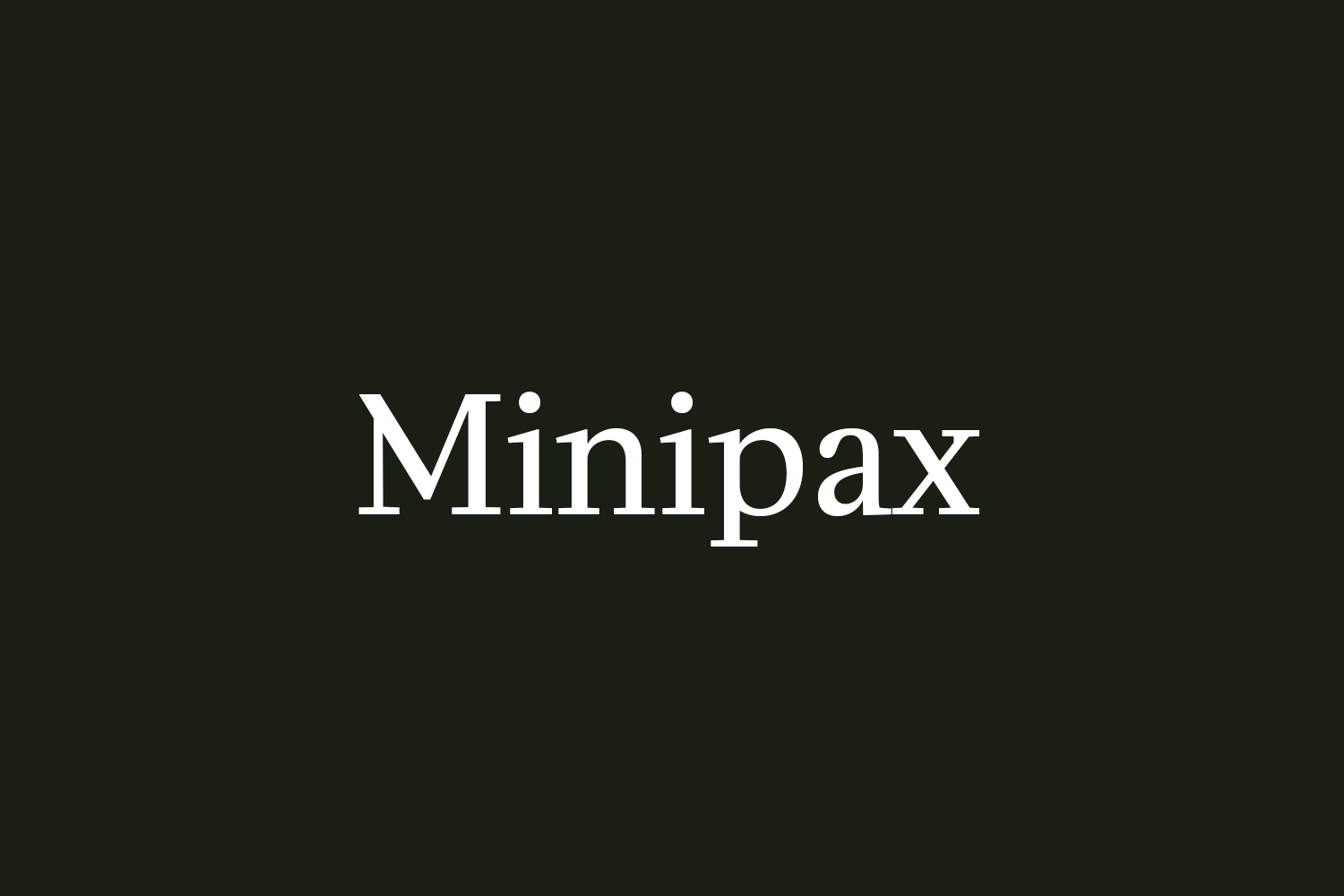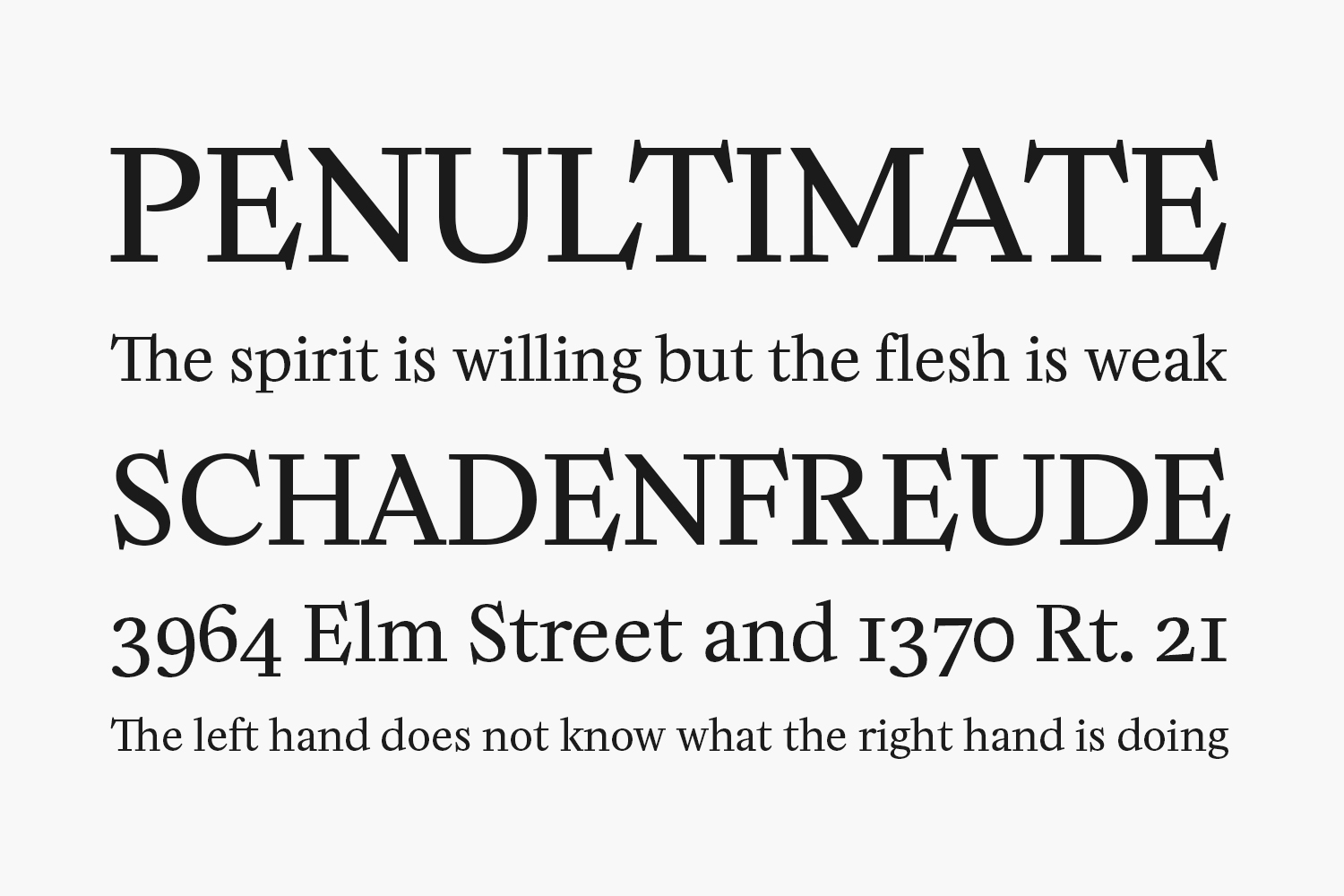
Minipax Free Font Family is a typeface inspired by the novel 1984, from George Orwell. It has been vaguely influenced by the skeleton of the font used in my edition of the book (printed in 84 !). But more importantly, it’s been designed to fit with the atmosphere of the Orwellian dystopia. And although Minipax remains a rather transparent text typeface, many of its distinctive features have been crafted to reflect de dusty and gritty universe of the novel.
There’s something more about Minipax : from the start, I wanted it to be a quite complete type family (large glyph sets are rare in the world of open-source fonts). Which is why it has many alternates, ligatures, special characters and a whole bunch of diacritics… So that you can enjoy typesetting with Minipax, without worrying about language support or small capitals for instance. This is also the reason why I made it a variable-font… hoping it would provide a reasonable amount of choices to a demanding typographer.